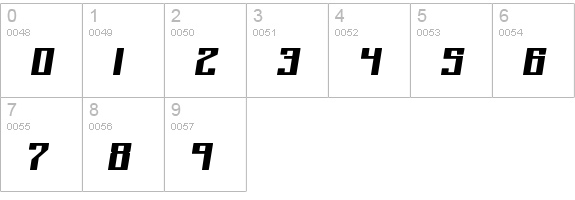
Kaliber Solid (BRK) Font Details
Kaliber Solid (BRK) font is a stunning display typeface that exudes strength and solidity. It is a perfect choice for projects that require a bold and impactful statement. The font's sharp edges and clean lines give it a modern and futuristic appearance, making it ideal for branding, logos, headlines, posters, and other design projects. Kaliber Solid (BRK) font is designed with attention to detail, ensuring that every character is well-crafted and visually appealing. Its strong, bold presence demands attention and commands the viewer's focus. With its distinctive look, this font is sure to make a lasting impression and stand out from the crowd. One of the best things about Kaliber Solid (BRK) font is that it is available for free download at FontsMarket.com. This means that you can easily access and use this amazing font in your projects without any cost. Whether you are a professional designer or a hobbyist, this font provides you with a valuable resource that adds a touch of professionalism and uniqueness to your work. By using Kaliber Solid (BRK) font, you can elevate your designs and create a memorable visual experience for your audience. Its versatility allows it to be used in a variety of contexts, from digital to print media, ensuring that your message is delivered with impact and clarity. Don't miss out on the opportunity to add Kaliber Solid (BRK) font to your font collection. Download it for free at FontsMarket.com and unlock its potential to transform your designs into something extraordinary.